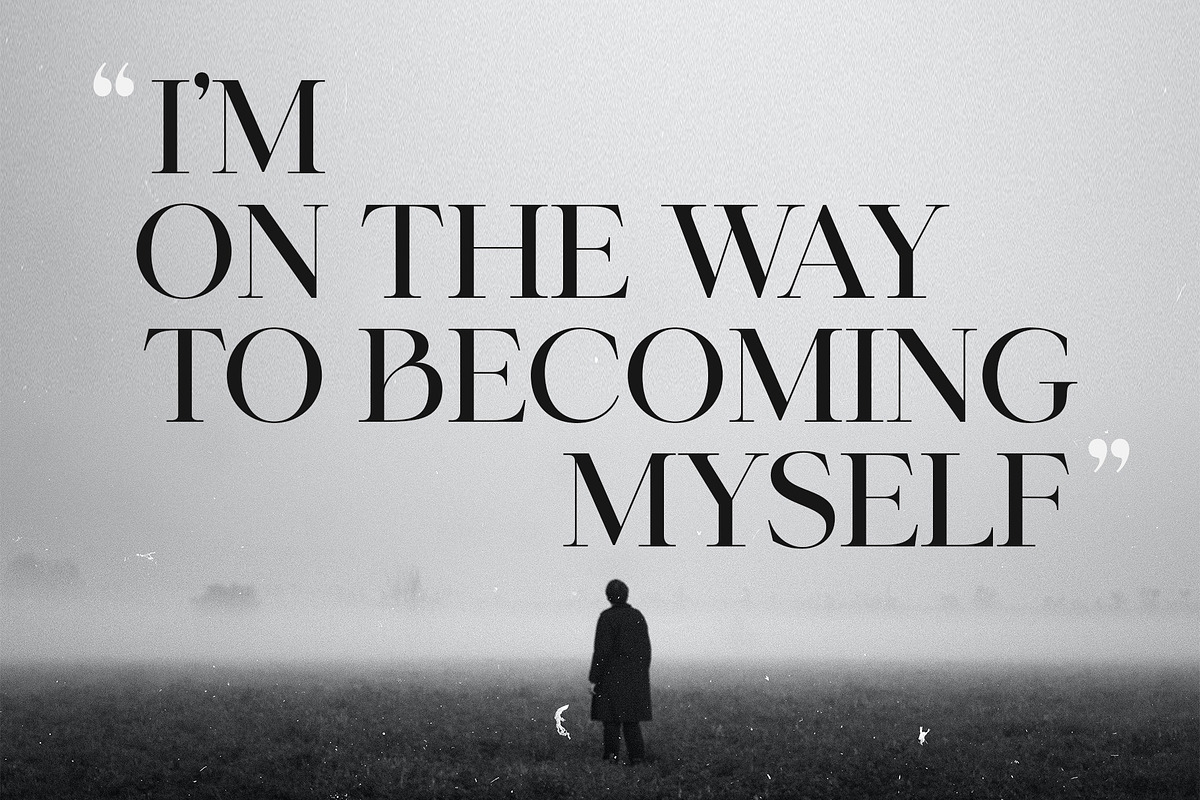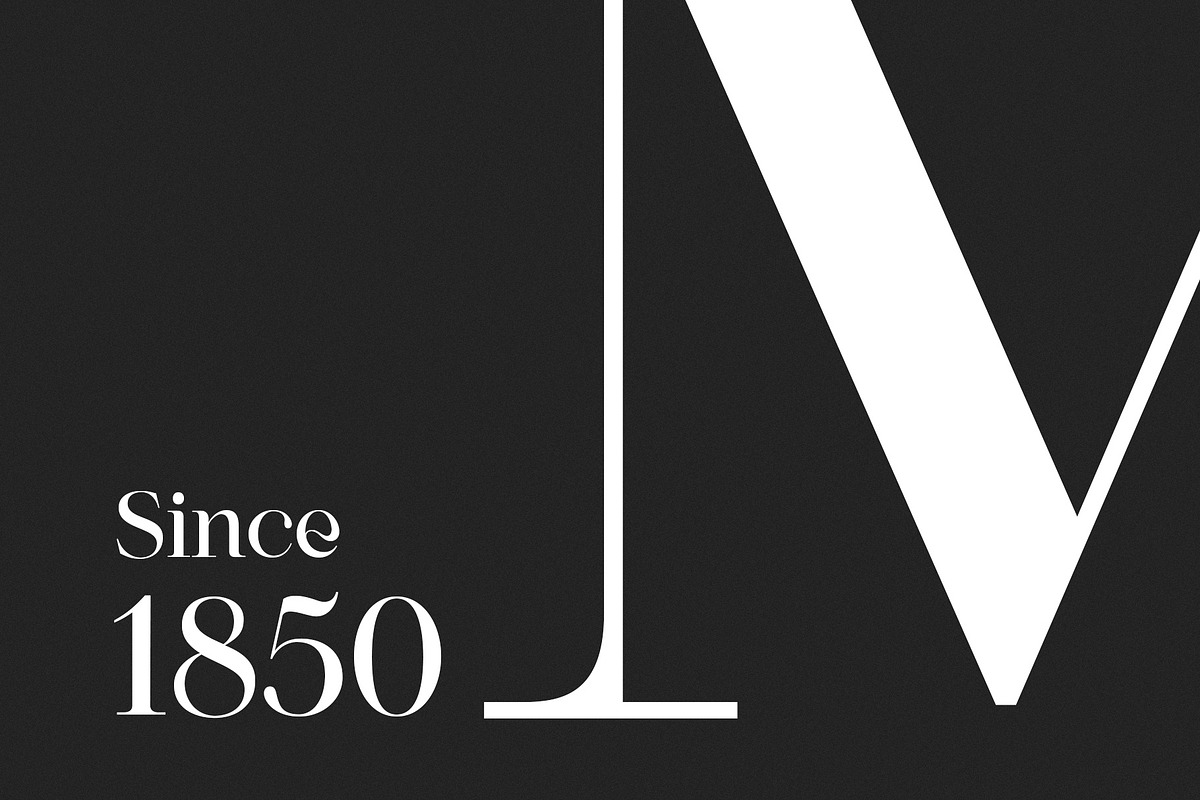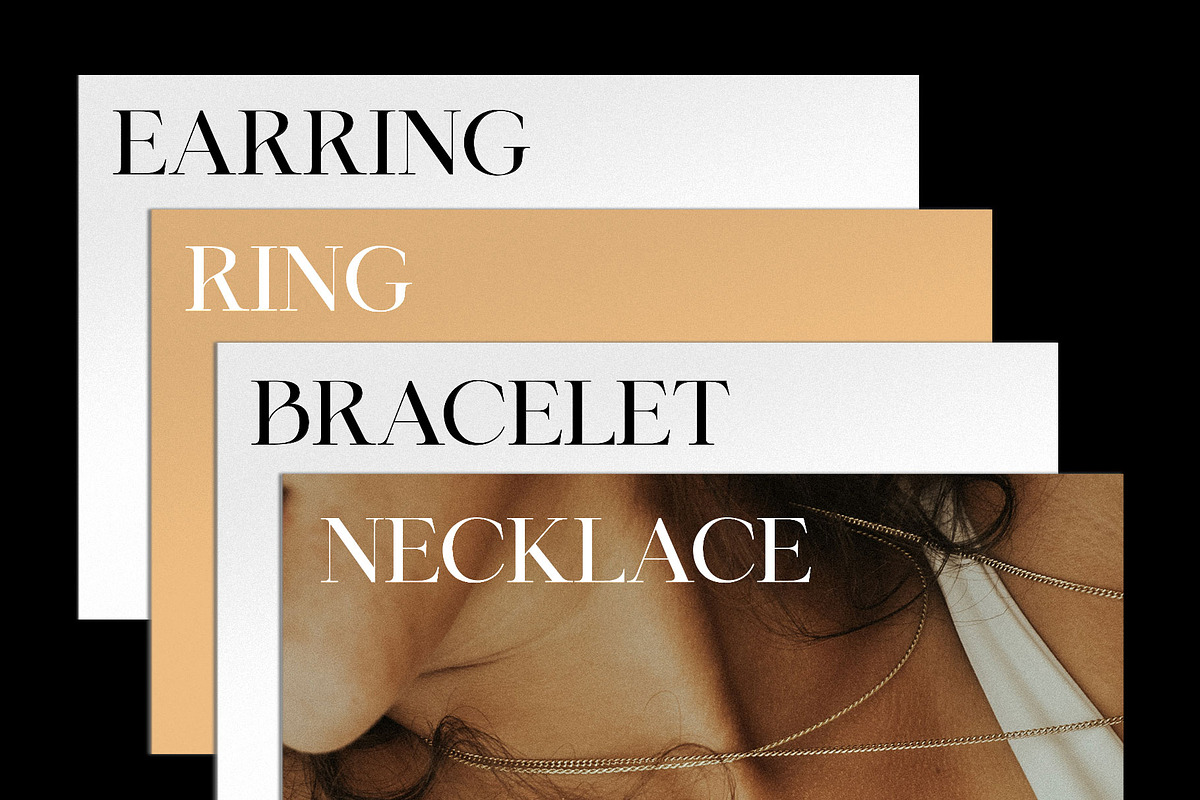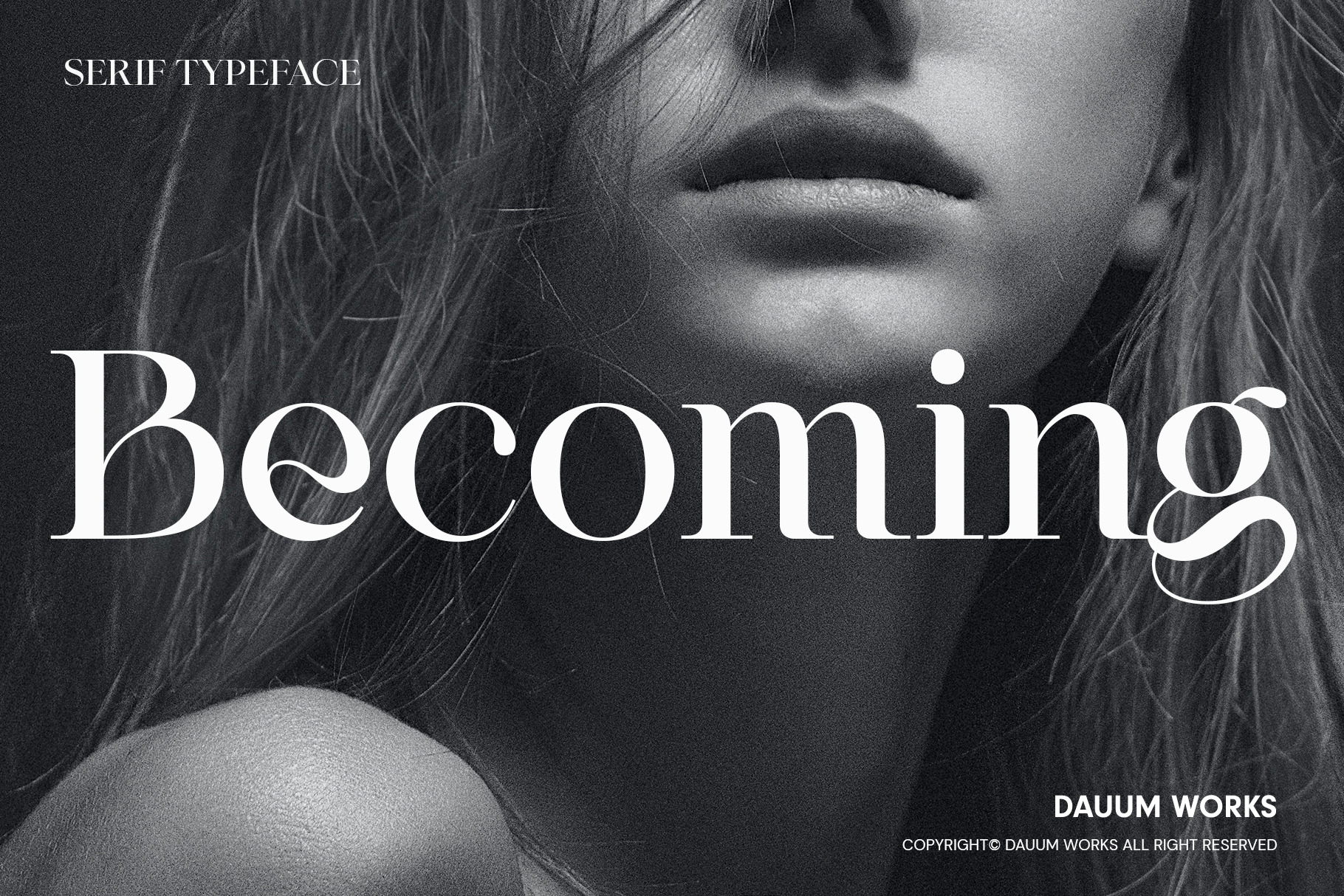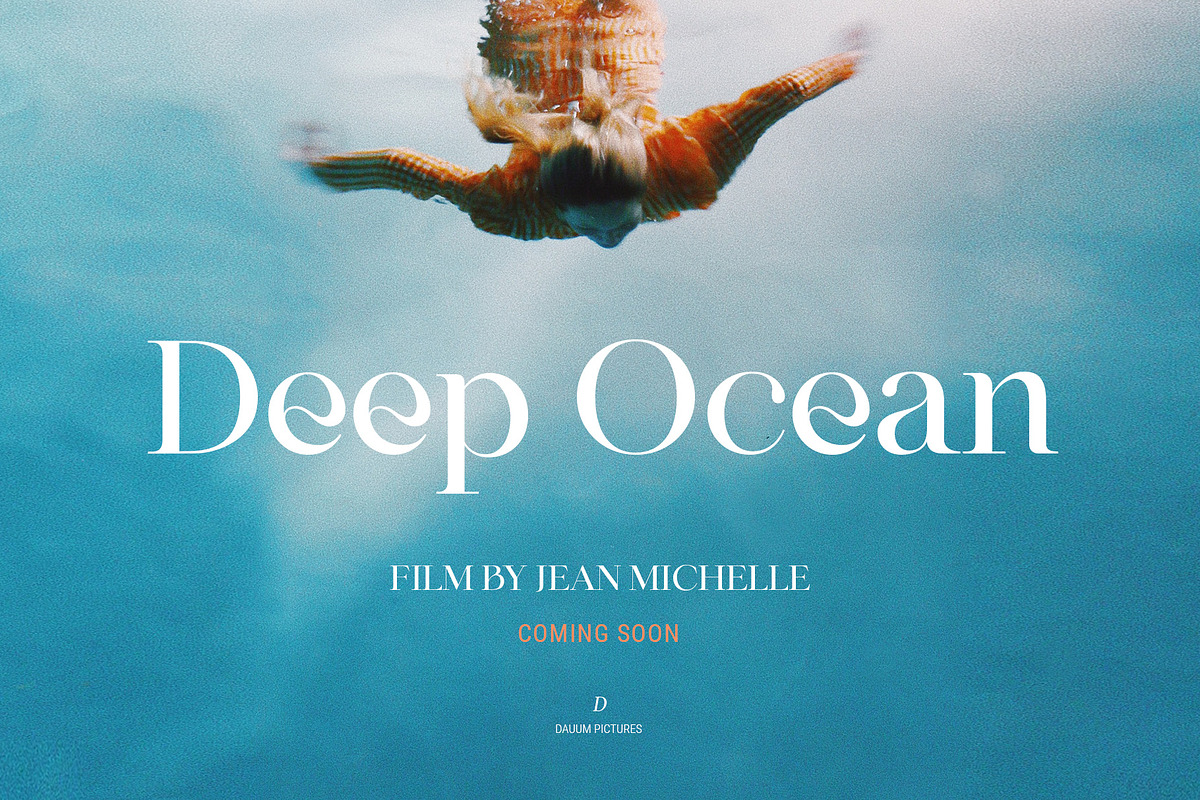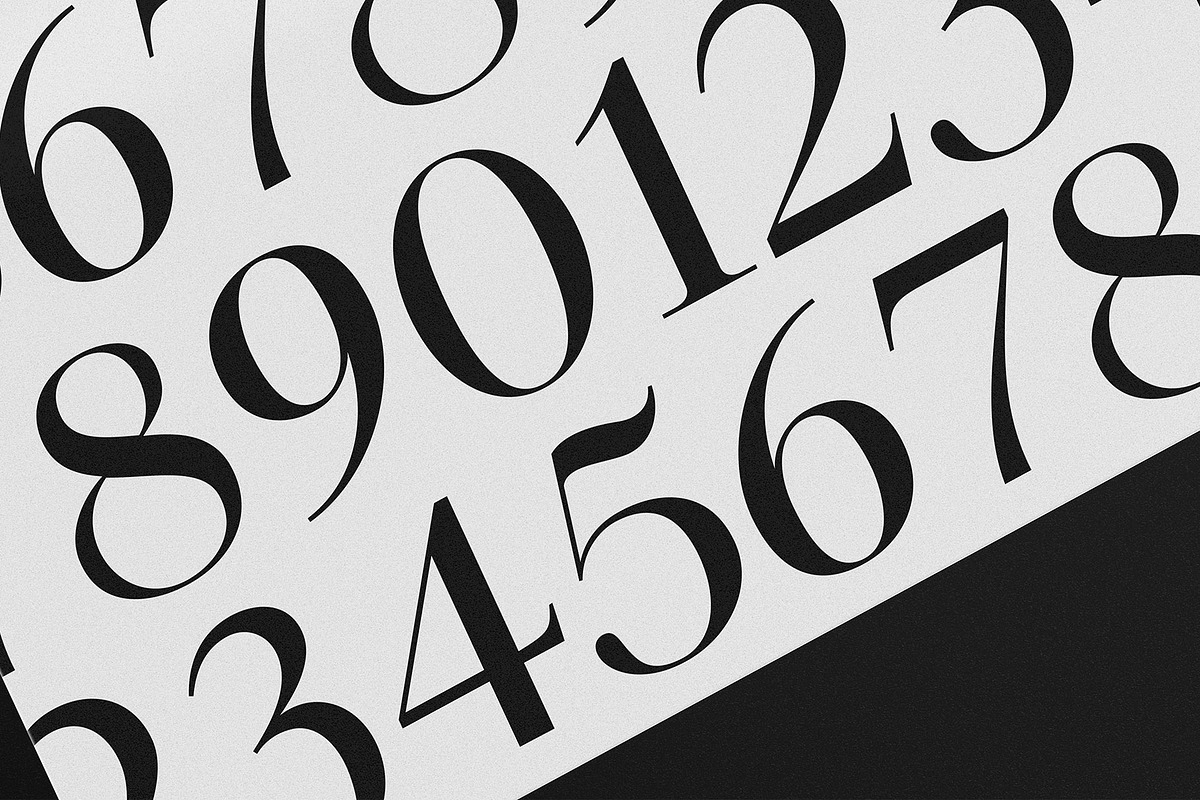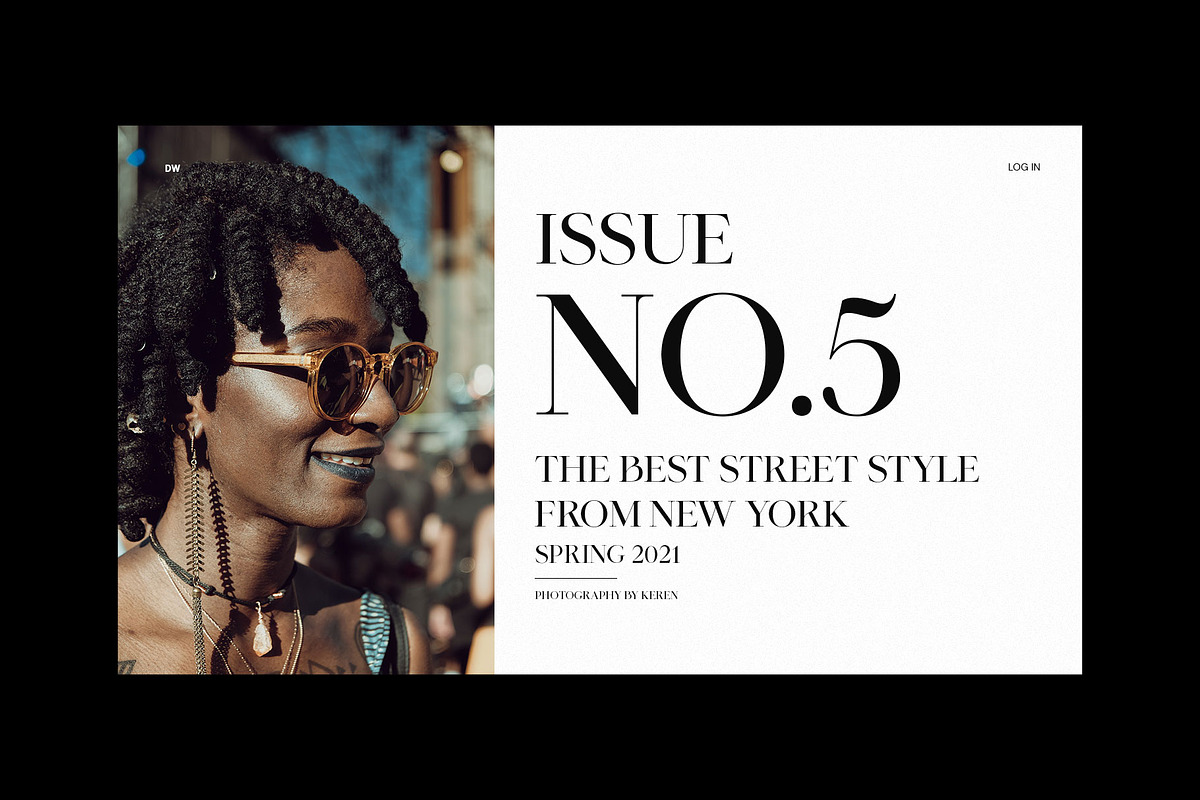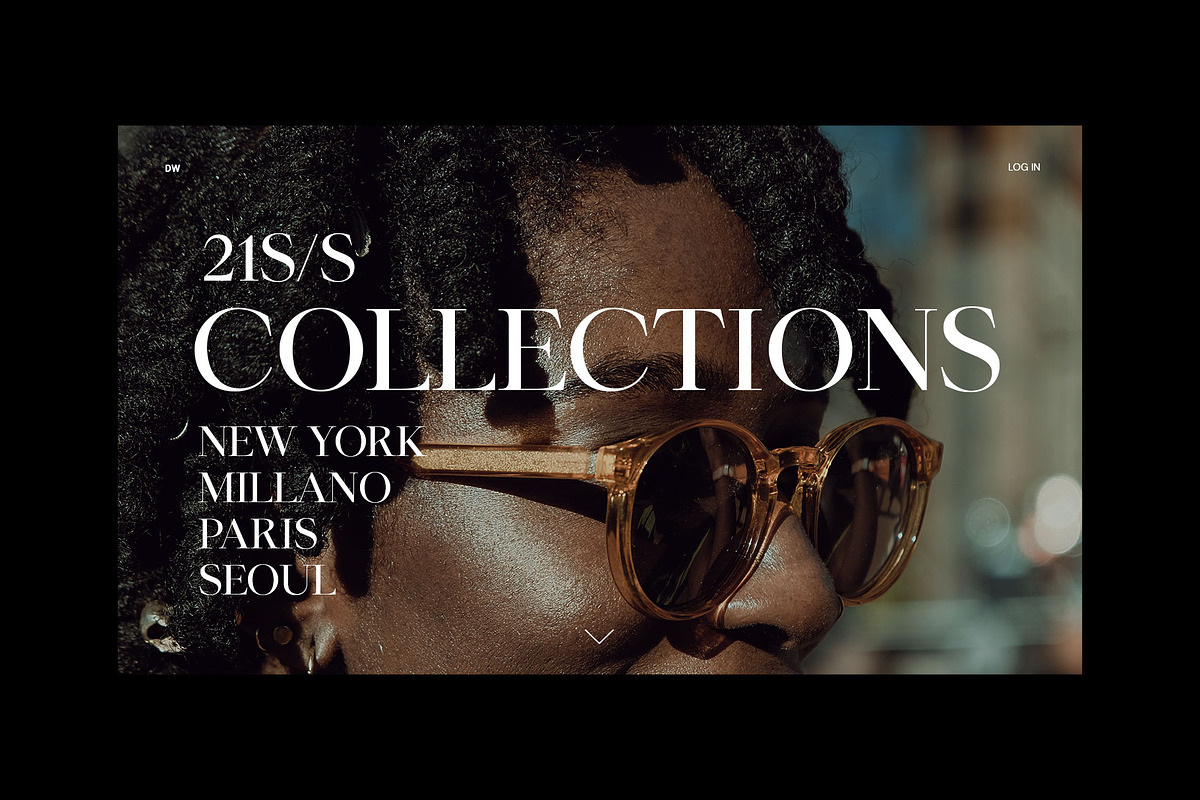
Becoming - Serif Typeface
Becoming is a serif typeface that combines the contrast of bright curves and sharp straight lines.
The constant height and angle are refined. In a certain alphabet, the contrast of intense bends is characterized by freedom.
Discovering the potential within yourself. I want you to be yourself.